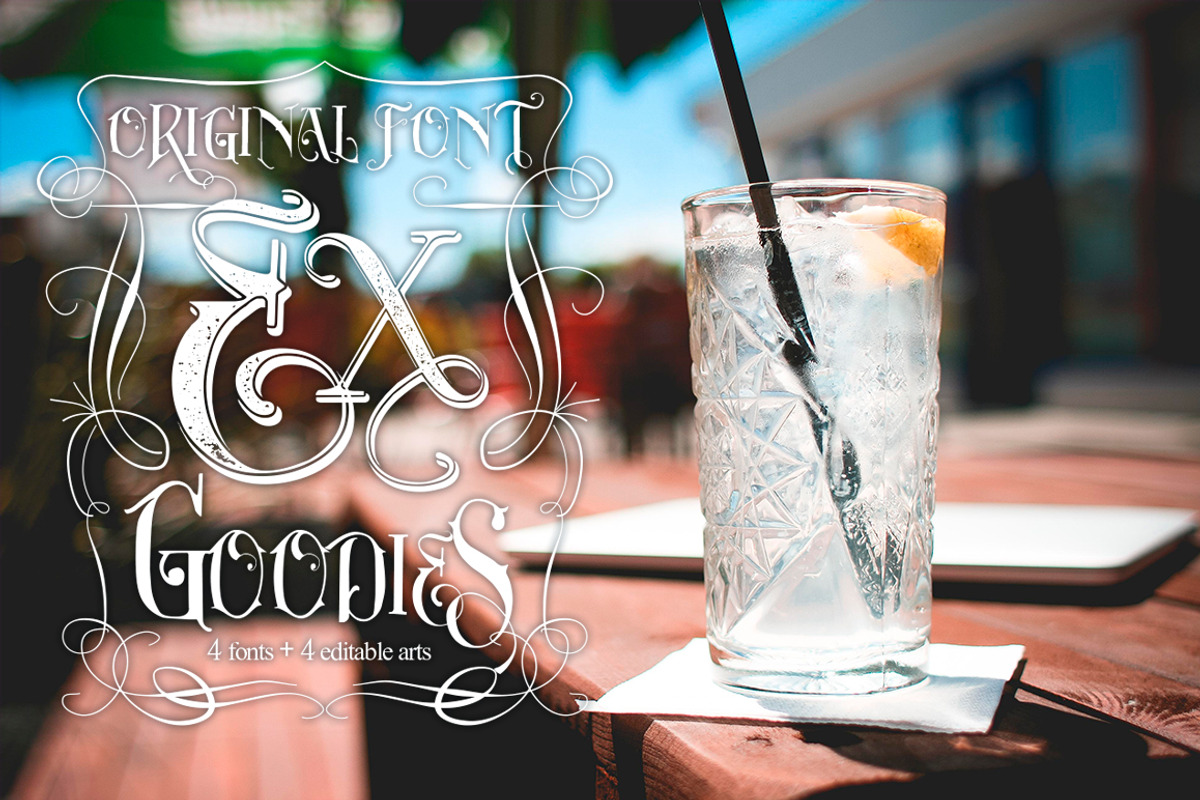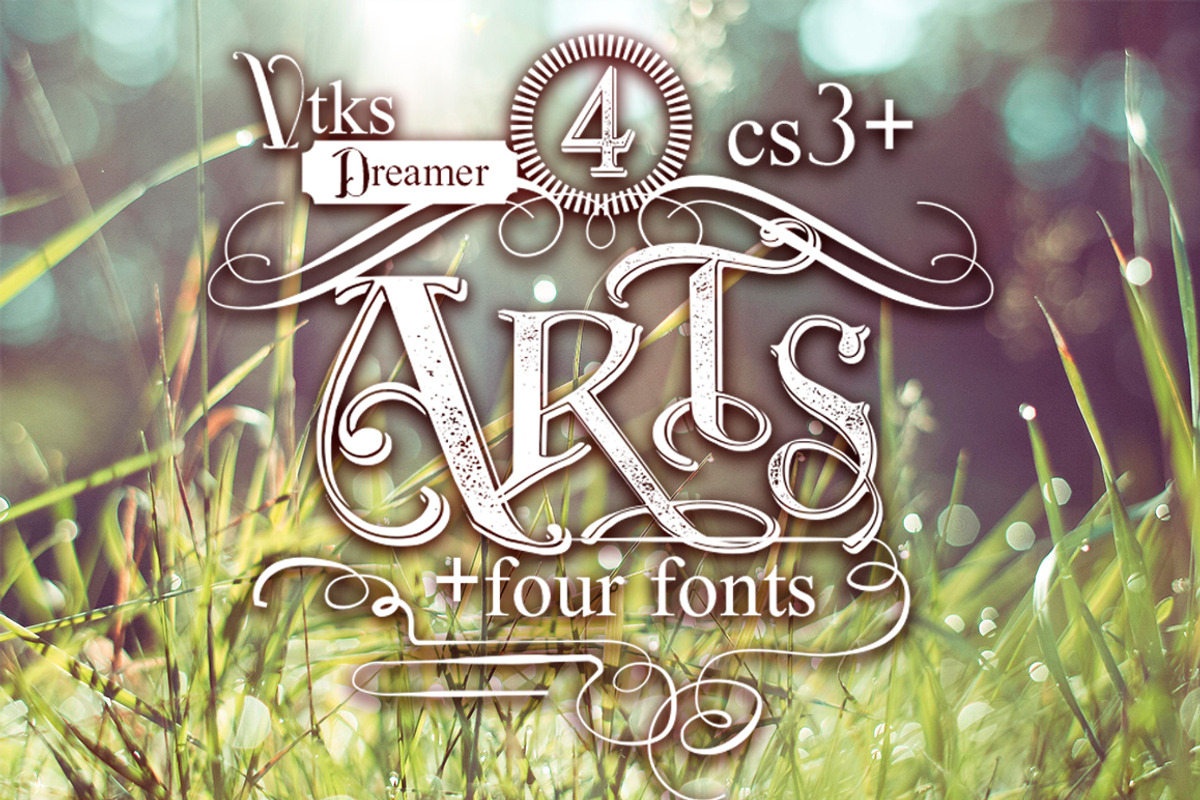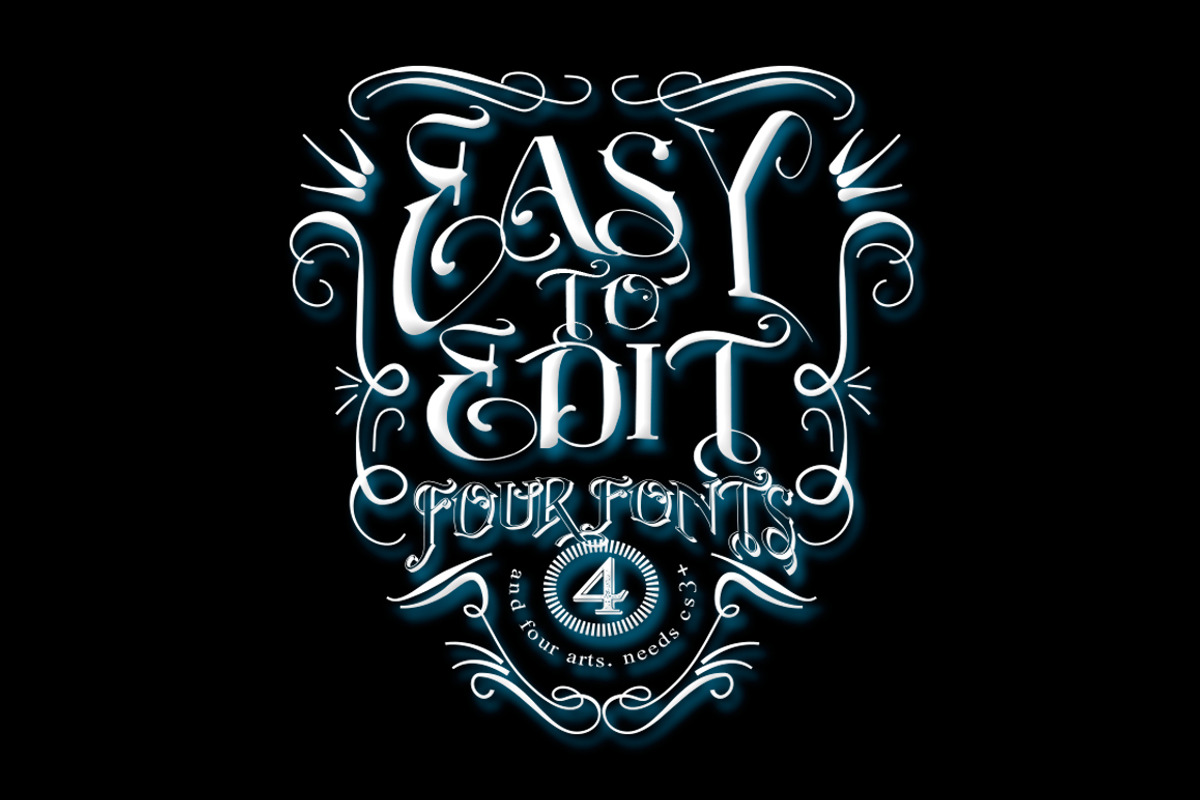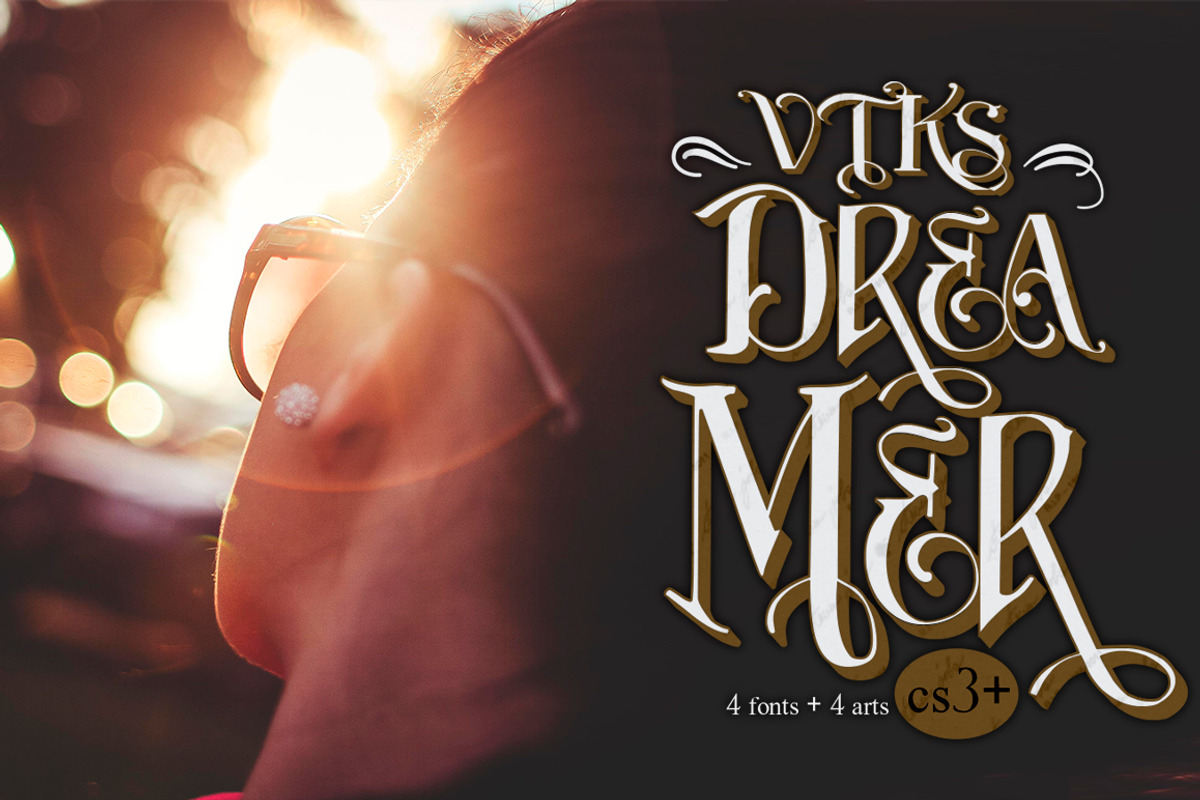
Dreamer font + 4 arts
Dreamer font + 4 arts by vtks design is a font selected for branding, posters, packaging, typography.
Why Dreamer font + 4 arts is worth a look
Dreamer font + 4 arts by vtks design fits naturally into Branding, posters, packaging, typography.